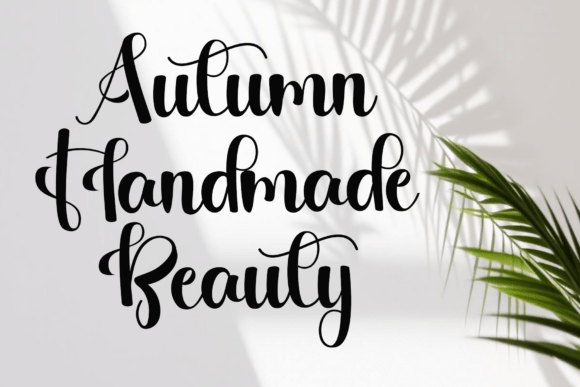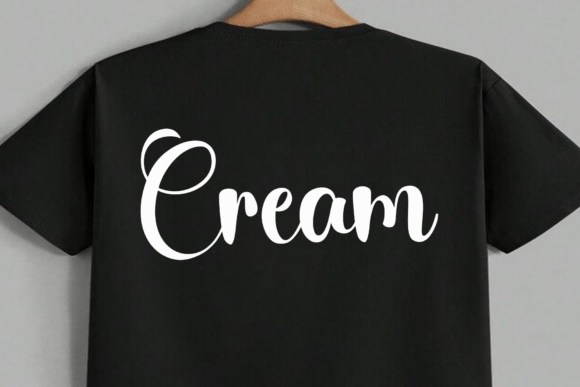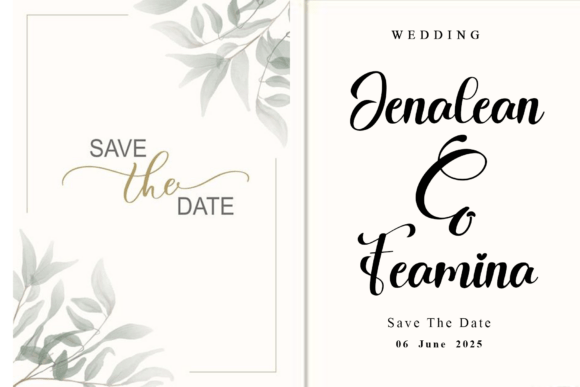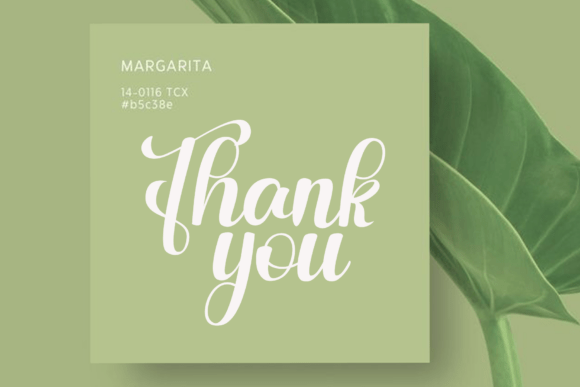
Introduction to Delions Font
As a designer, there’s nothing quite like the thrill of stumbling upon the perfect font for a creative project. The words “Delions Font” might just be the magic phrase you’ve been searching for. Imagine yourself pouring over a collection of elegant script fonts, each one more stunning than the last, until you finally land on the one that makes your heart skip a beat. This is exactly what happens when you discover Delions Font – a beautifully flowing script font that radiates charm and sophistication.
With smooth curves and a handwritten feel, Delions Font is perfect for designers looking to add a touch of elegance to their work. Whether you’re crafting a wedding invitation, creating a personal brand, or designing packaging for a special product, this high-quality font is sure to impress. And the best part? It’s available for free download, making it an invaluable resource for any creative project.
- Delions Font boasts a unique blend of modern and elegant typography, perfect for making a statement in your creative project.
Honest Review: Delions Font
I recently stumbled upon the Delions Font, and I must say it’s been a game-changer for my design projects. As a designer, I’m always on the lookout for high-quality design resources that can elevate my creative work. The Delions Font definitely fits the bill.
- High-quality design: The Delions Font is well-designed and visually appealing, making it perfect for a wide range of creative projects.
- Limited character set: The Delions Font only includes a limited character set, which may not be suitable for all design projects.
- No bold or italic options: Unfortunately, the font does not offer bold or italic options, which can limit its versatility.
Overall, I’m impressed with the Delions Font. It’s a great resource for designers who need a high-quality, easy-to-use font for their creative projects. While it has some limitations, it’s definitely worth checking out.
Delions Font
Delions Font is a high-quality design resource that can elevate your creative project with its unique and stylish look. It’s available for free download, making it an ideal choice for designers of all levels.
Delions Font is commonly used in creative projects such as logo design, branding, and marketing materials. Its unique style makes it an ideal choice for designers who want to add a touch of sophistication to their work.